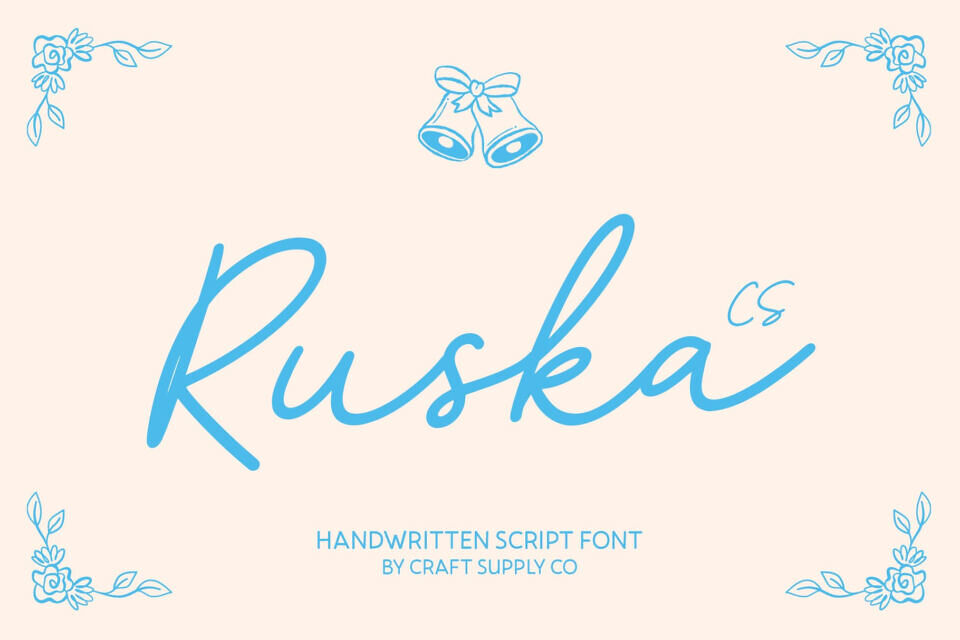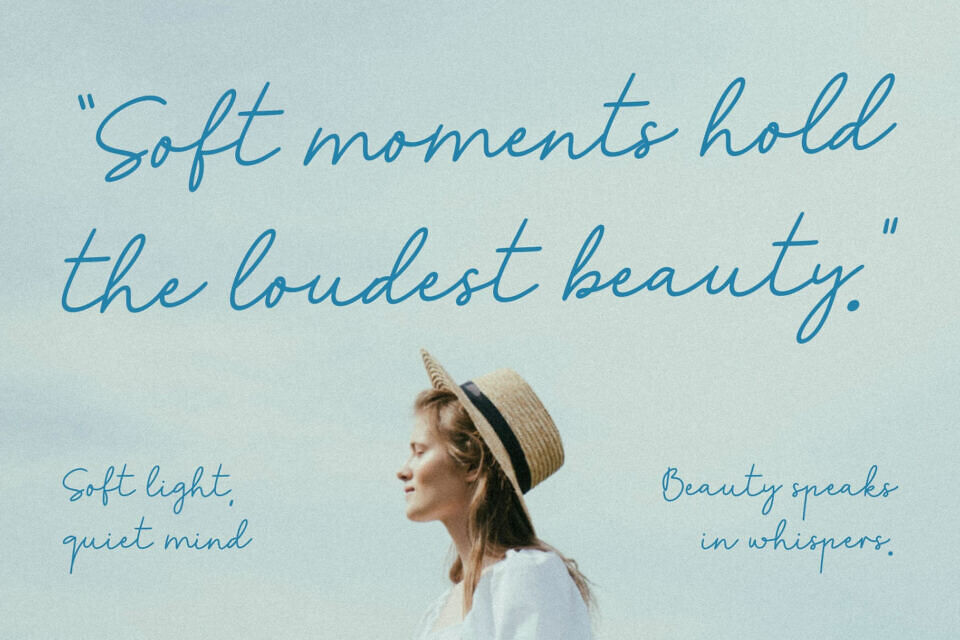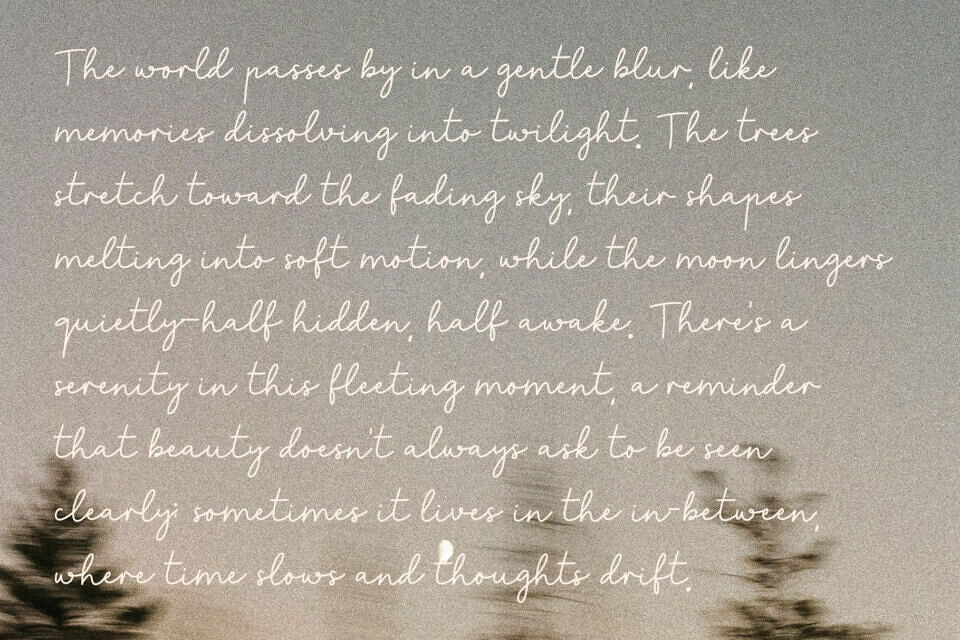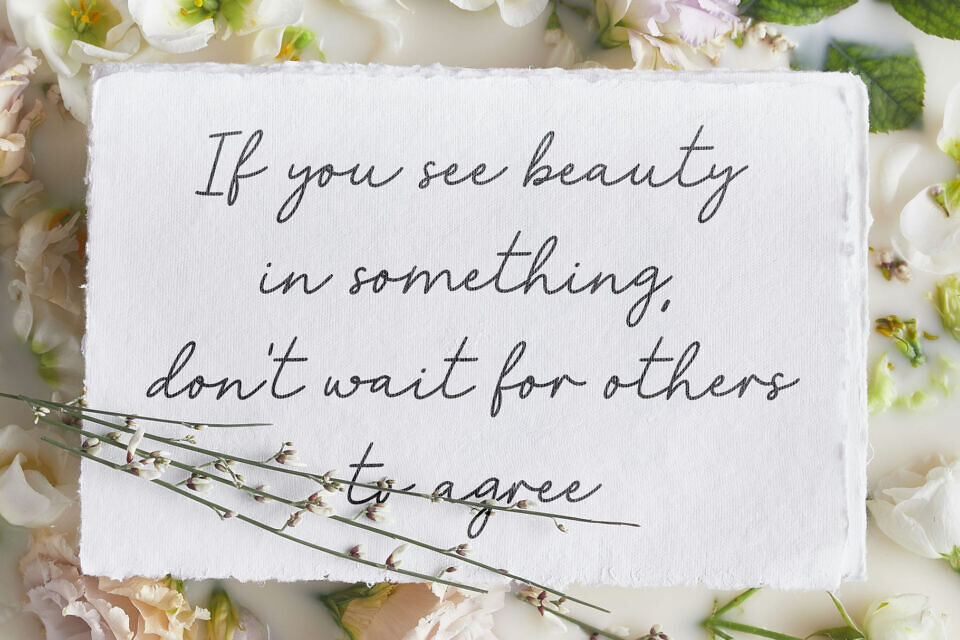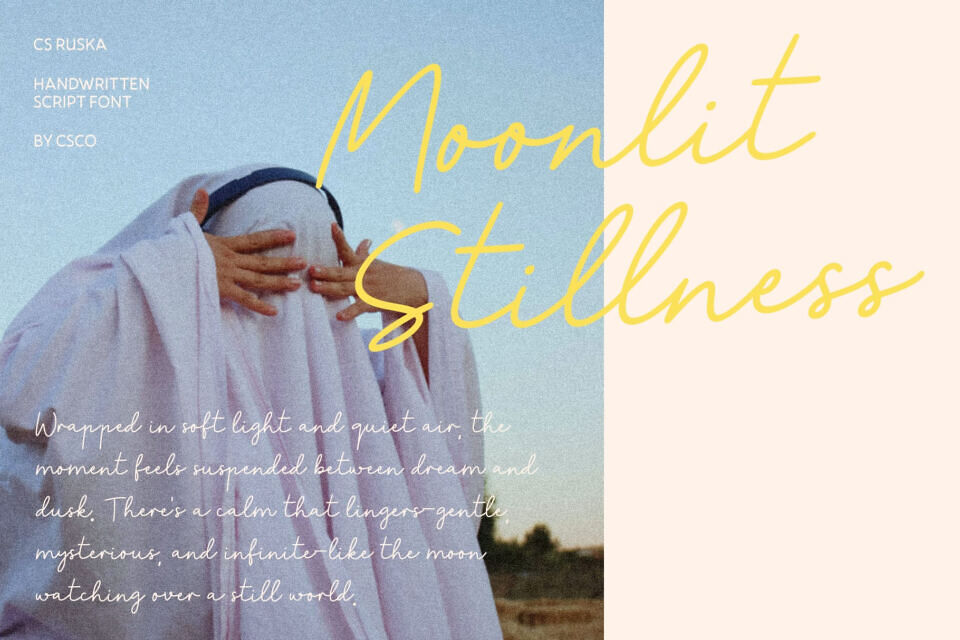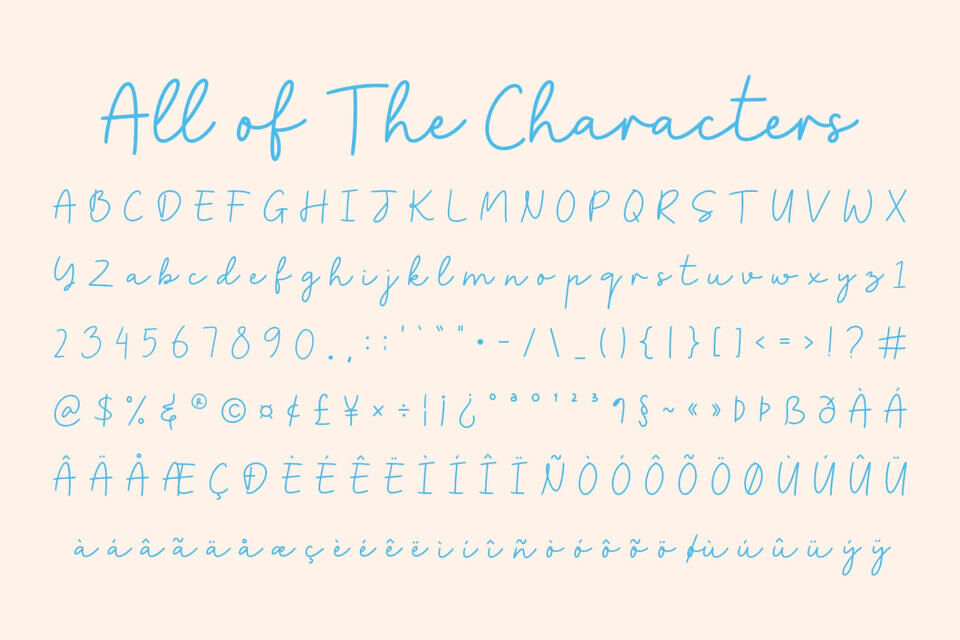
Ruska is a romantic and stylish script font that flows gracefully, capturing the essence of Mediterranean beauty and sophistication. Its smooth, fluid strokes reflect the warmth and charm of Italian handwriting, bringing an air of timeless refinement to every design.
Every curve in this font is crafted to create a seamless rhythm between letters. The flowing forms and delicate contrast give the font a natural handwritten grace ideal for projects that require both beauty and personality. It feels effortless yet distinctly elegant, evoking the feeling of handwritten love notes and artisan craftsmanship.
Inspired by classic Italian aesthetics, this font embodies confidence, romance, and artistic flair. The balanced proportions and graceful ligatures make it suitable for high-end designs while maintaining a soft, inviting character.